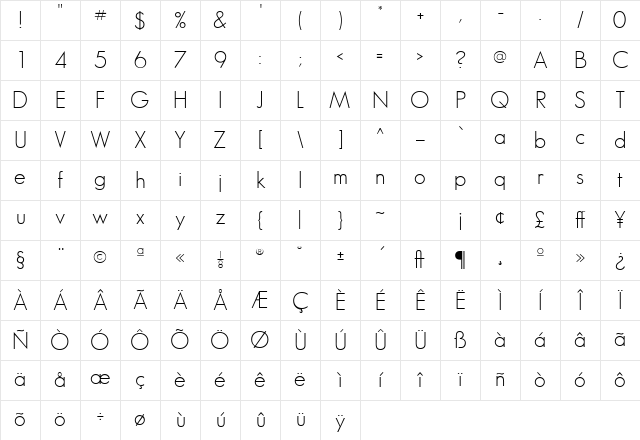
Sanderson Regular
Design Context for Sanderson
Sanderson is a composed and adaptable typeface that performs quietly and consistently across a wide range of design contexts.
Pro Tip: Use Sanderson in both headline and body roles to test its range before committing to a single application.